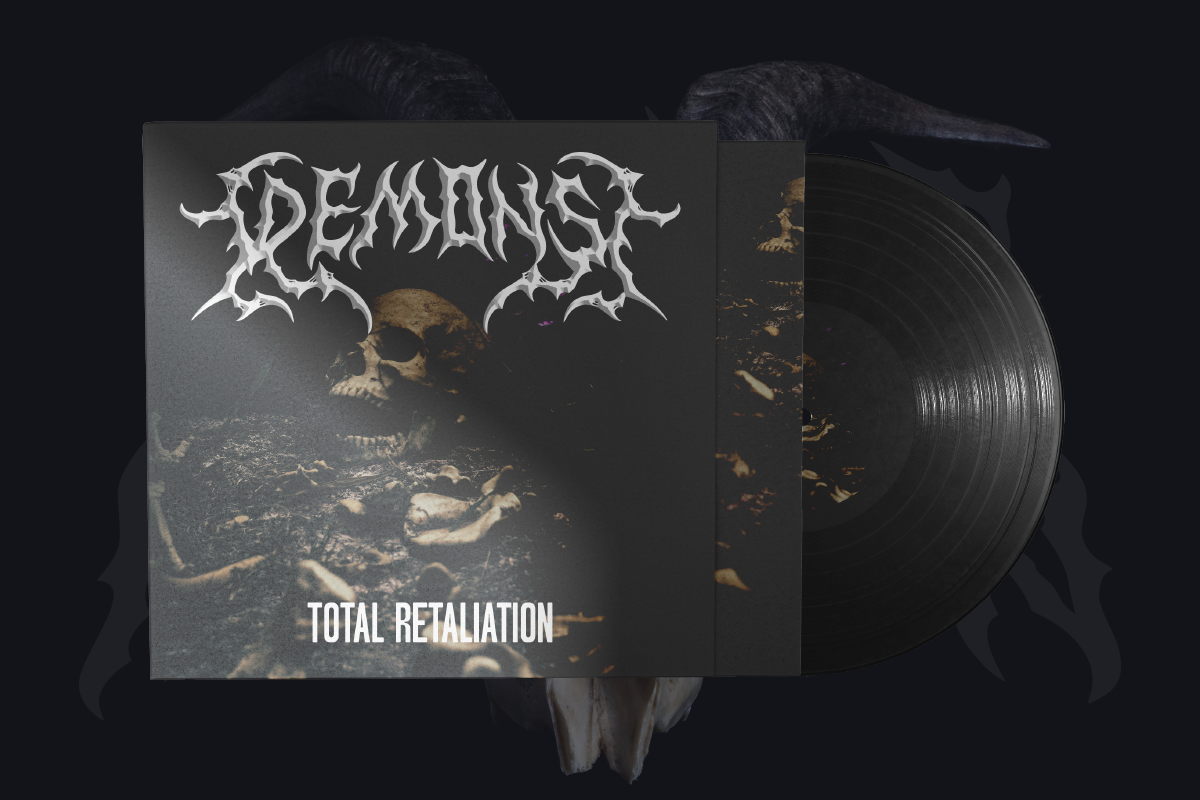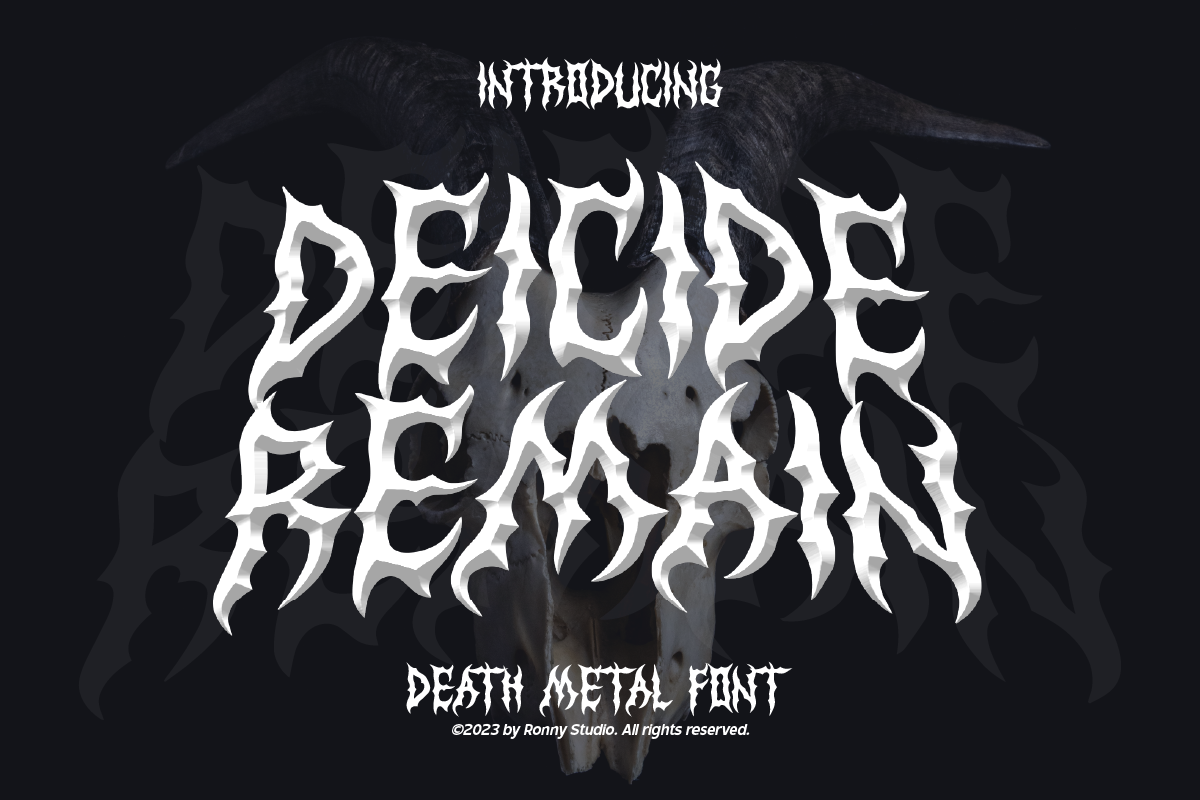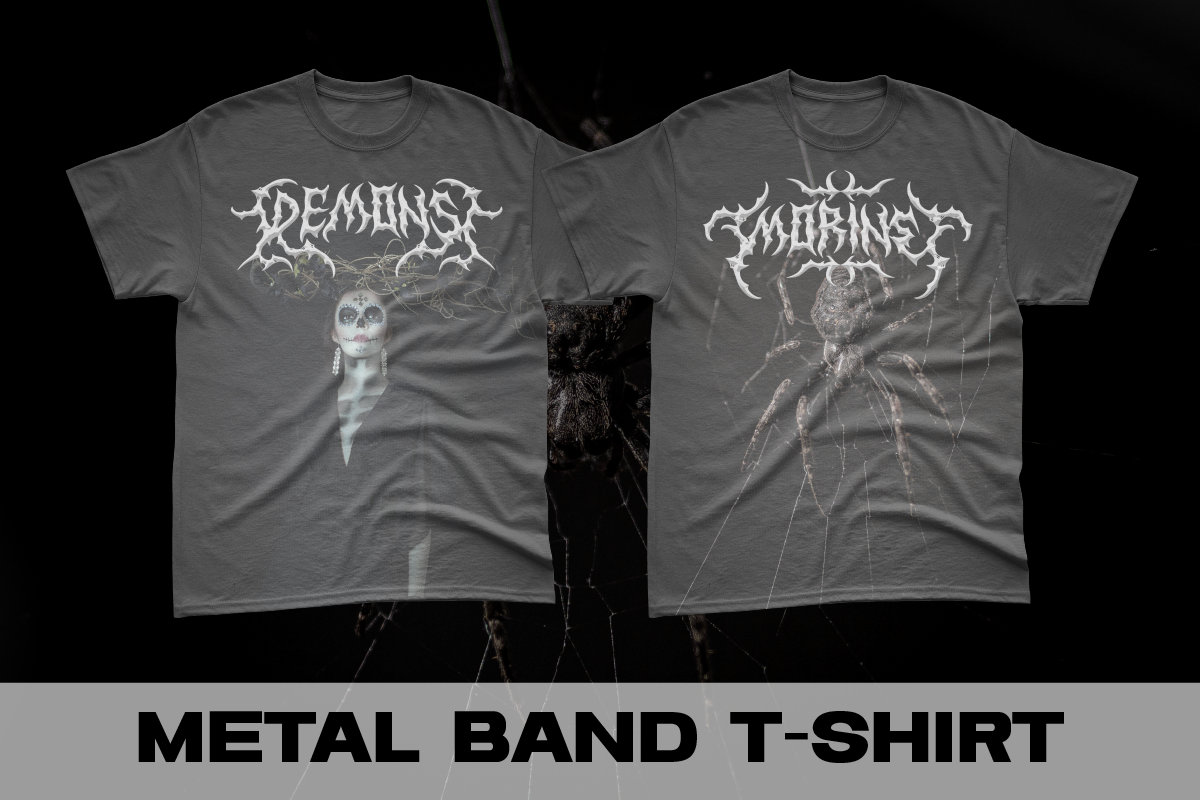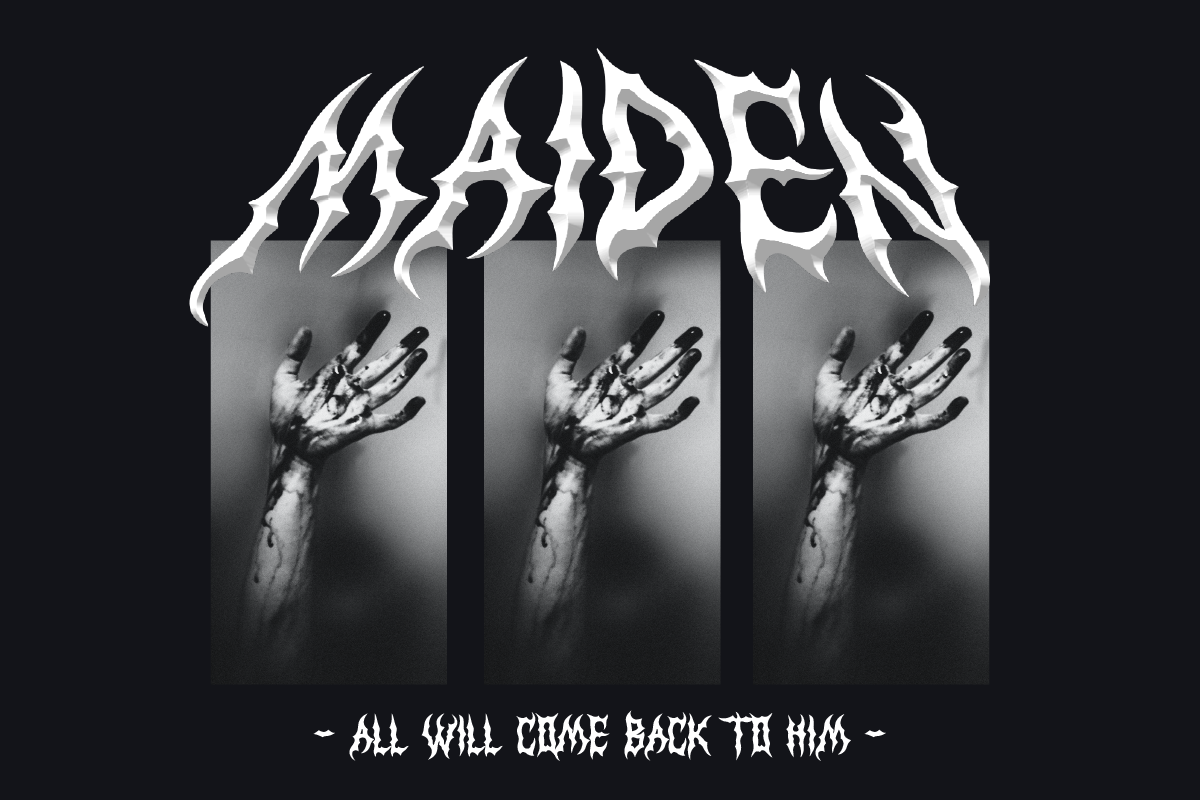
Deicide Remain Death Metal Font
Deicide Remain – Death Metal Font for Hardcore and Extreme Designs
Introducing Deicide Remain, a brutal and aggressive death metal font designed to bring fierce energy to your creative projects. Inspired by underground metal culture and gothic aesthetics, Deicide Remain features distorted, jagged letterforms that scream attitude and rebellion. Perfect for band logos, album covers, posters, merchandise, and extreme branding, this font gives your designs a raw and unapologetic look.
Its bold, gothic-inspired style is crafted for those who want their designs to stand out with power and intensity.
- Death Metal Style – Bold, distorted characters with sharp edges and a rebellious attitude.
- Complete Character Set – Includes uppercase, lowercase, numbers, punctuation, and multilingual support.
- Versatile Use – Ideal for band logos, album covers, posters, merchandise, social media, and edgy branding projects.
- Death metal and underground band logos
- Album covers, tour posters, and promotional materials
- Extreme sports branding and edgy product packaging
- Gothic-inspired merchandise and apparel
- Social media graphics for metal scenes and events
- Projects that demand an aggressive, intense, and raw typography style
Turn up the volume of your designs with Deicide Remain.